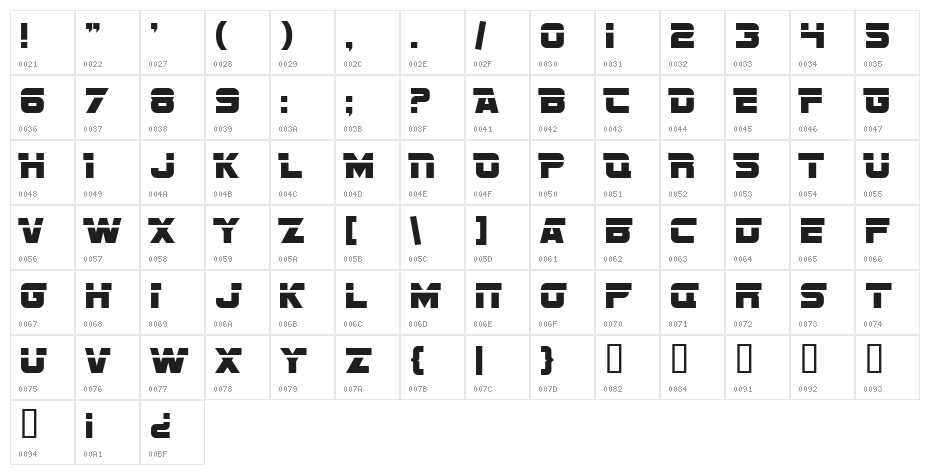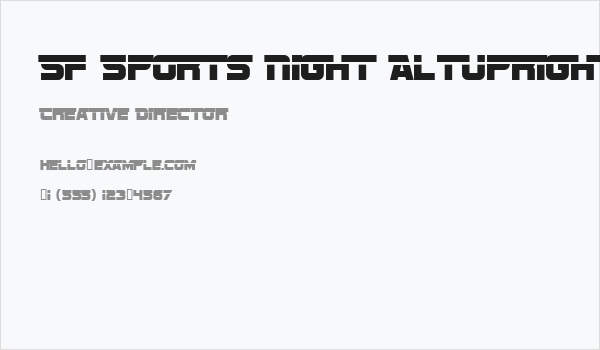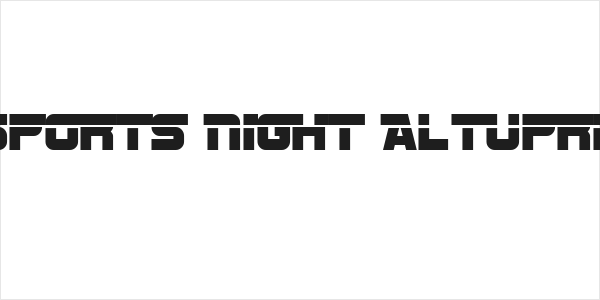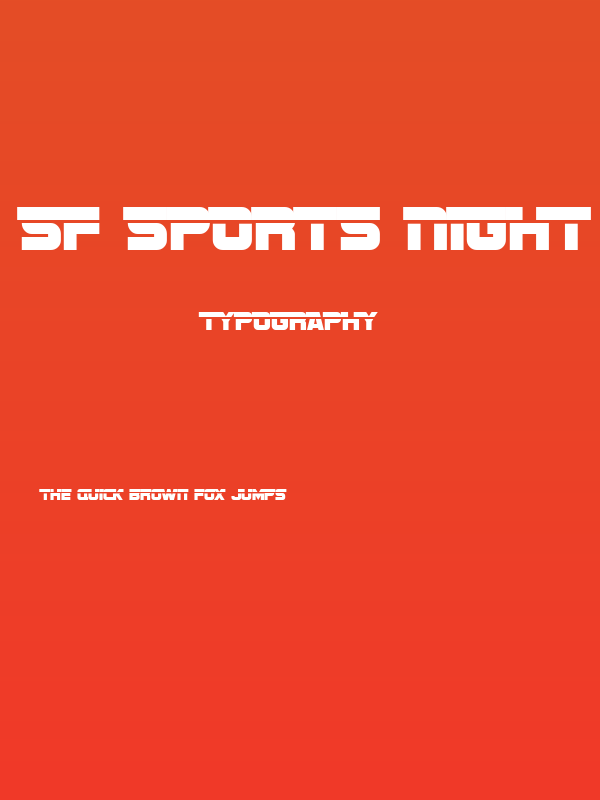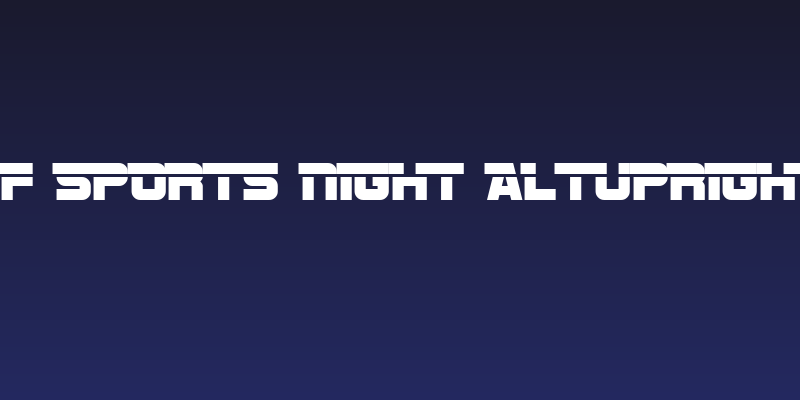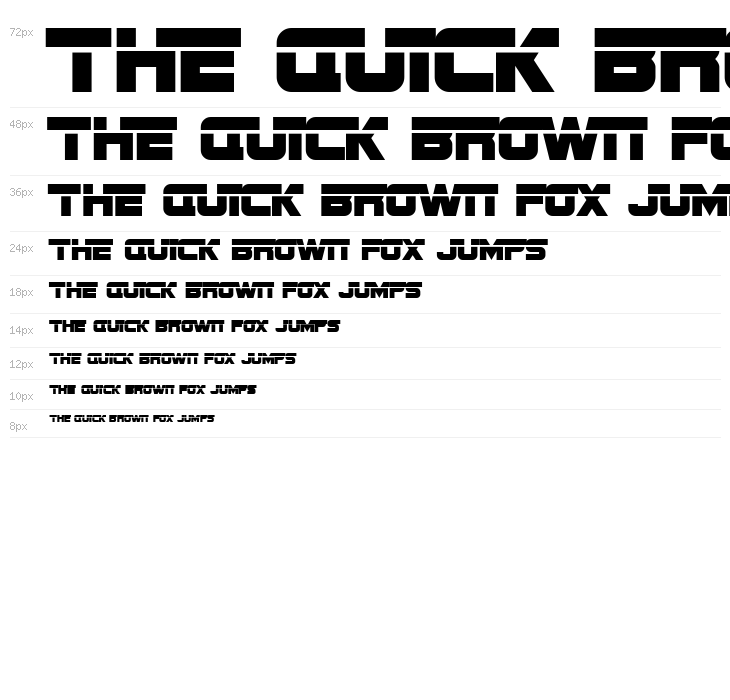
SF Sports Night AltUpright Font
SF Sports Night AltUpright Description
This font features a bold, geometric design with a futuristic flair. The uppercase letters are characterized by strong, angular lines and a consistent thickness throughout, giving it a robust and impactful appearance. The numbers and special characters maintain this bold style, ensuring uniformity across all characters. The font's design includes unique cutouts and sharp edges, adding to its modern and dynamic aesthetic. It is well-suited for projects that require a strong visual impact, such as sports branding or technology-related designs.
| Proposed Projects | Ideal for sports branding, technology logos, and modern advertising campaigns. |